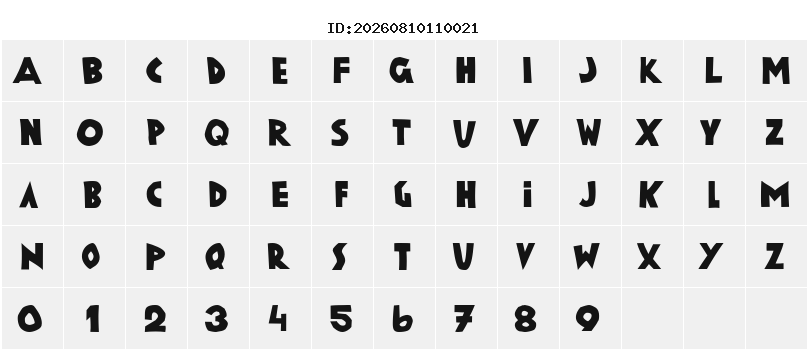
• Font Name: P22 Vienna Black
• Font ID: P22 Vienna Black
• Full Font Name: P22 Vienna Black Regular
• Designer: RIchard Kegler, Denis Kegler
• Manufacturer: P22 type foundry
P22 Vienna Black.ttf is a modern, elegant sans-serif font designed for ultimate readability and visual harmony. Perfect for branding, headlines, web design, and print materials.